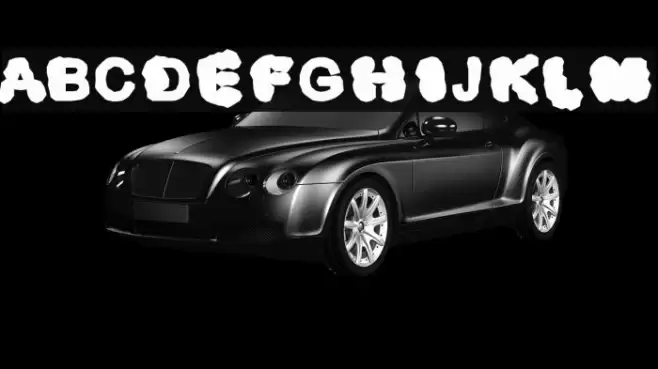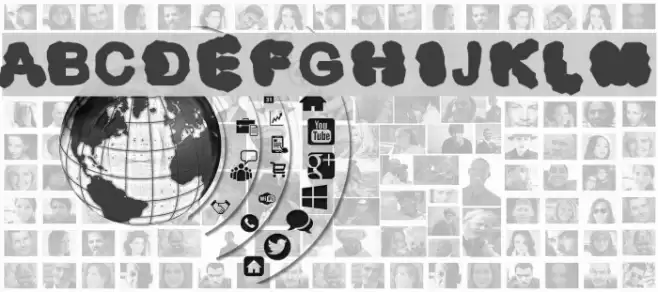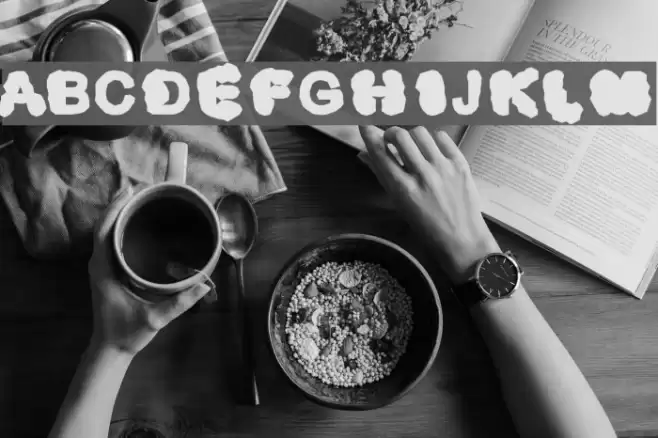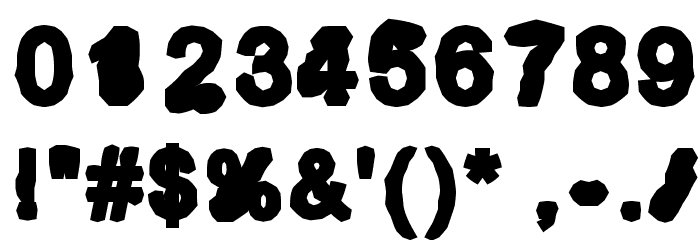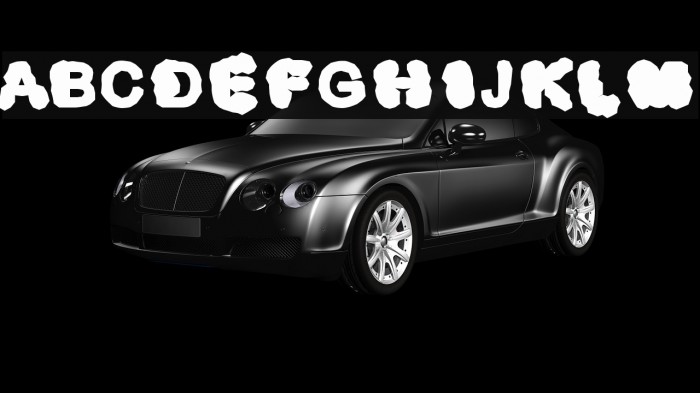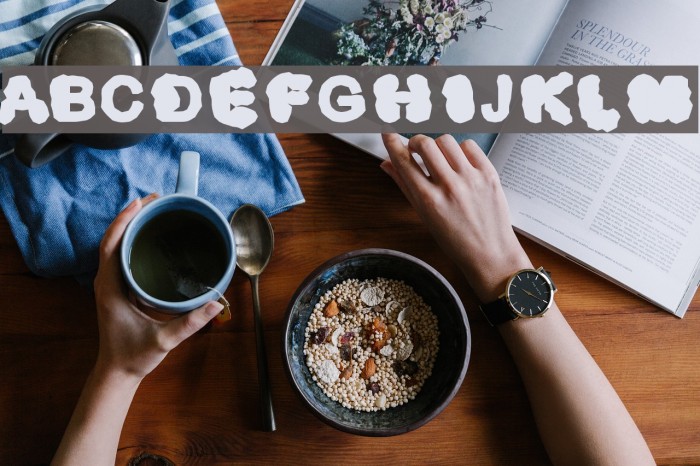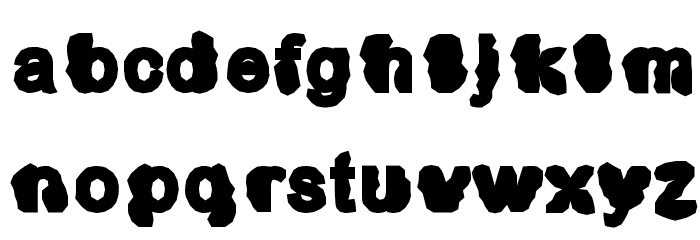
Mermaid Pudgy Font
Mermaid Pudgy Description
This playful and bold font features a unique, chunky design with a whimsical touch. The characters are heavily rounded, creating a soft, friendly appearance. The boldness of the letters makes them stand out, while the irregular shapes add a sense of fun and creativity. This font is perfect for projects that require a lively and informal tone. The uppercase and lowercase letters maintain a consistent style, with numbers and special characters following the same playful theme. The overall look is eye-catching and suitable for a variety of creative applications.
A playful, bold font with chunky, rounded characters and a whimsical style from Uncategorized fonts.
- Proposed Projects: Ideal for children's books, playful branding, party invitations, and creative posters.
- Overall Style: Playful, Whimsical